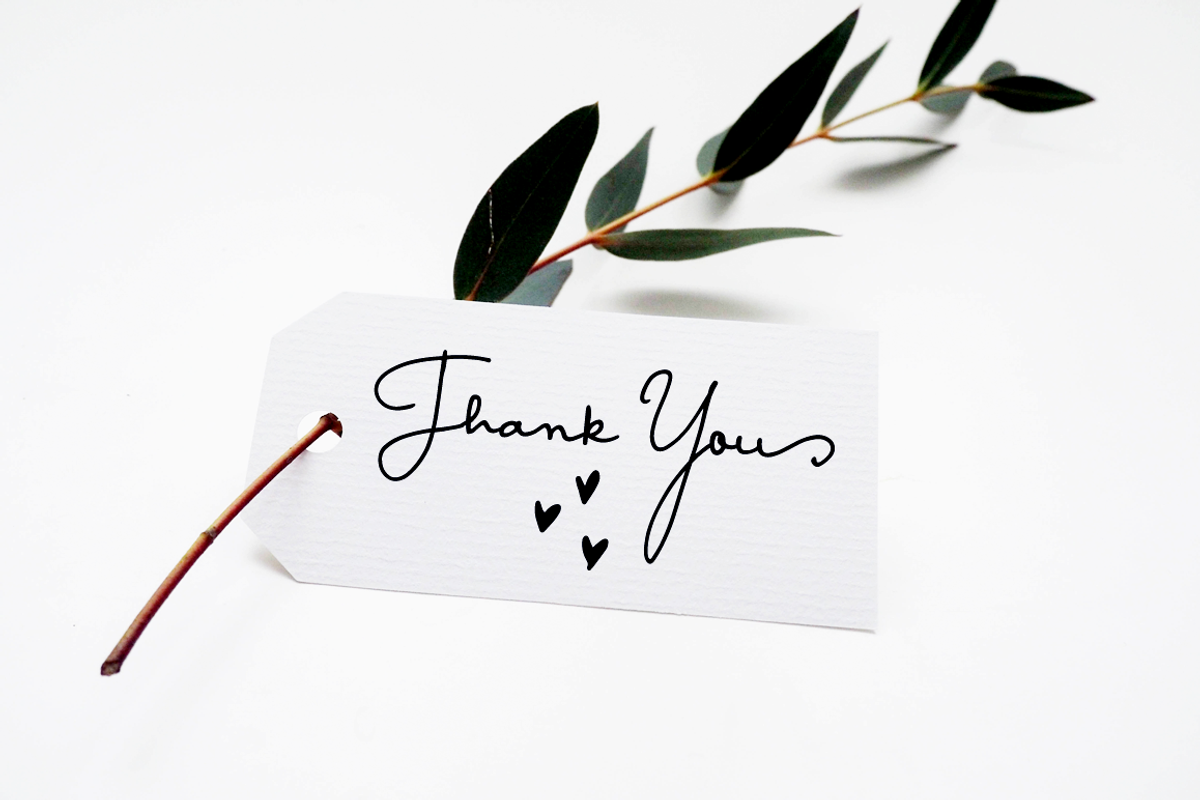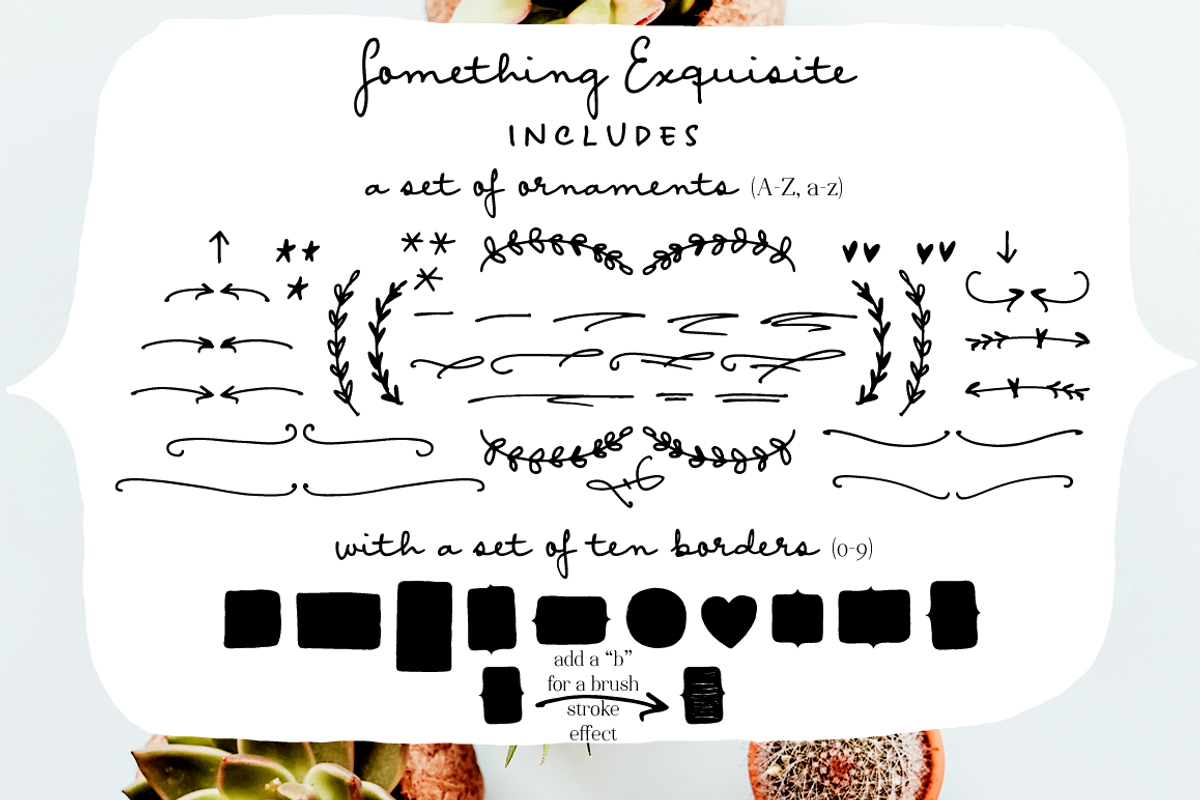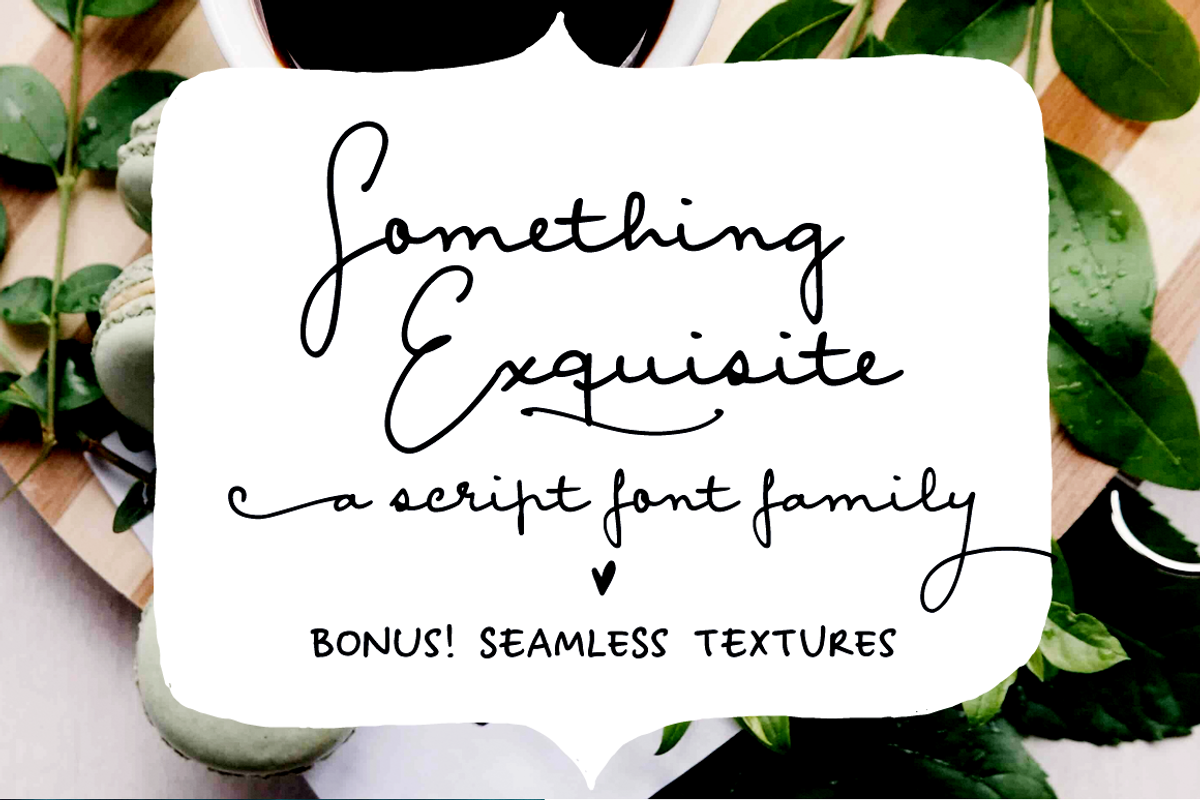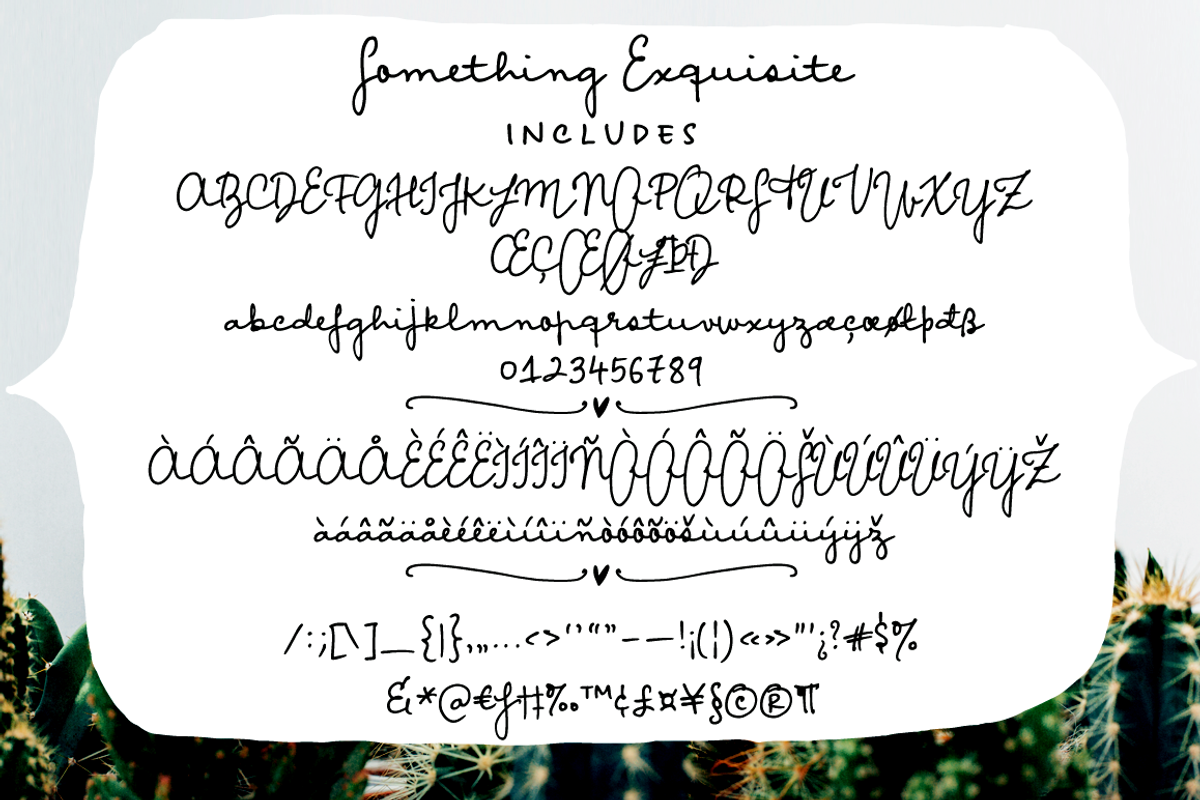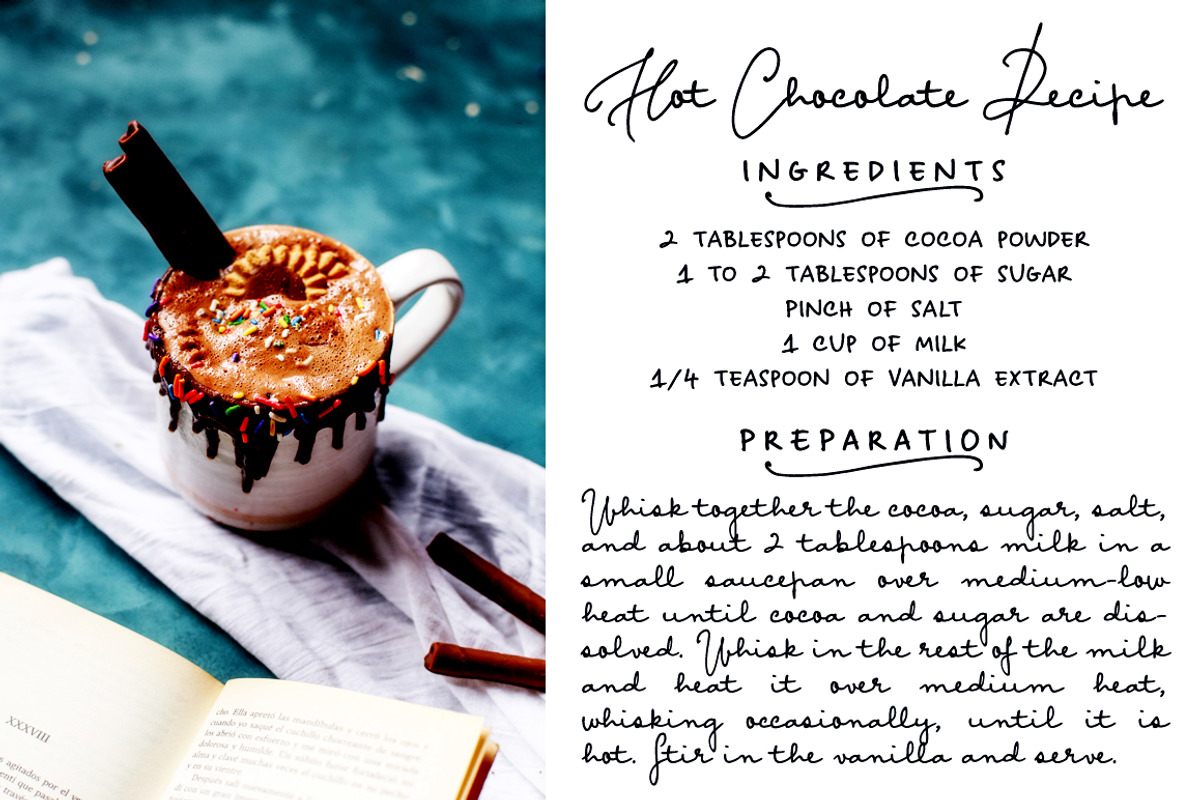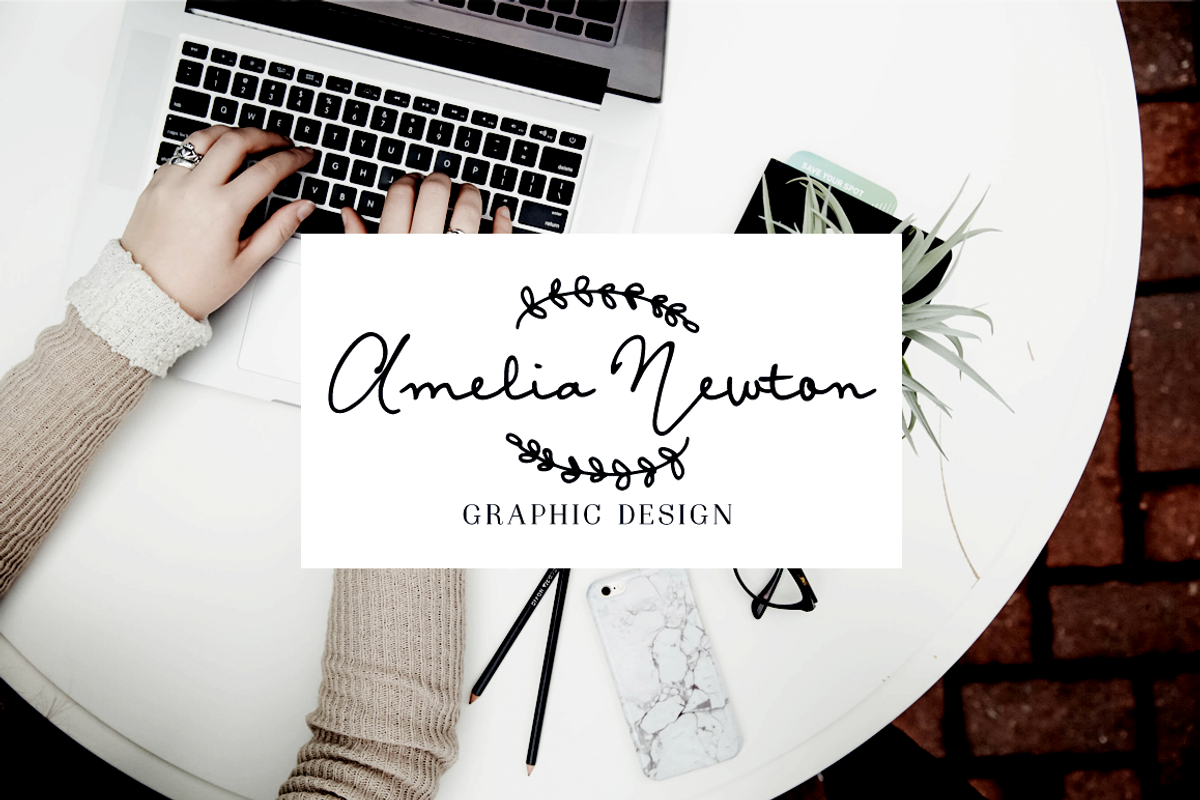
Something Exquisite script font
Something Exquisite is a cute but elegant font family which includes:
a script font with accents, numbers, symbols, punctuation, and ligatures for the double letters
an all caps font with different uppercase and lowercase letters
a small caps font based on the all caps
two sets of swashes, including 1 swash for each uppercase letter and 2 swashes for each lowercase
a set of ornaments and frames you can access easily through A-Z, a-z, and 0-9 (0b-9b for textured frames) keys respectively
a bonus set of 5 cute templates to get you started on using the font with all the bonus goodies
Something Exquisite is perfect for both short and longer texts, and can be used for making postcards and notes, creating logotypes, social media posts, branding and packaging.